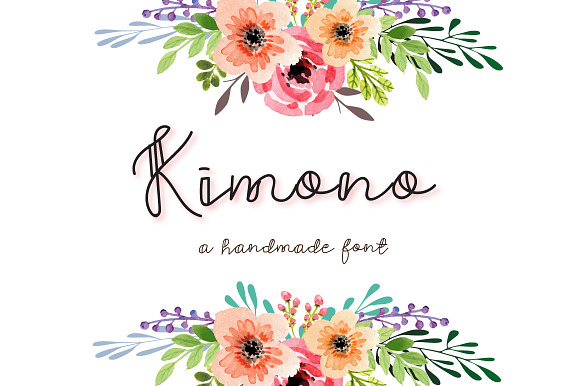
Kimono - A decorative font
Kimono is a modern decorative script font with tones of alternates, every single letters have been carefully crafted to make your text looks beautiful. With modern script style this font will perfect for many different project ex: quotes, blog header, poster, wedding, branding, logo, fashion, apparel, letter, invitation, stationery, etc.
Kimono - A decorative font by Zmapist fits naturally into Branding, posters, packaging, typography.